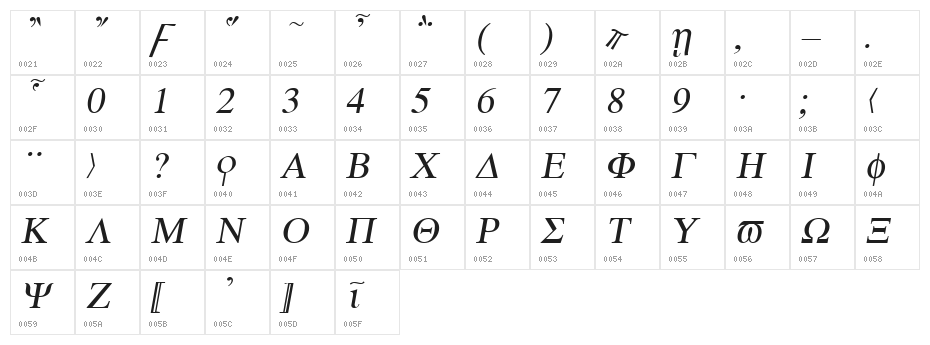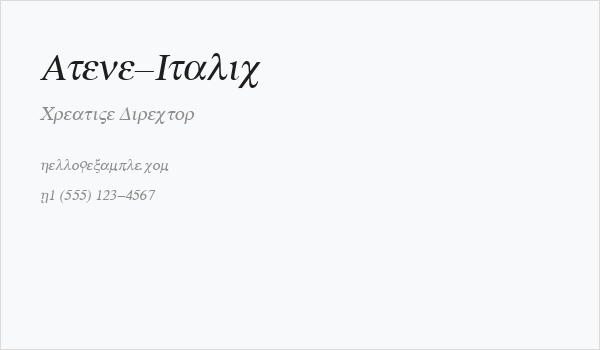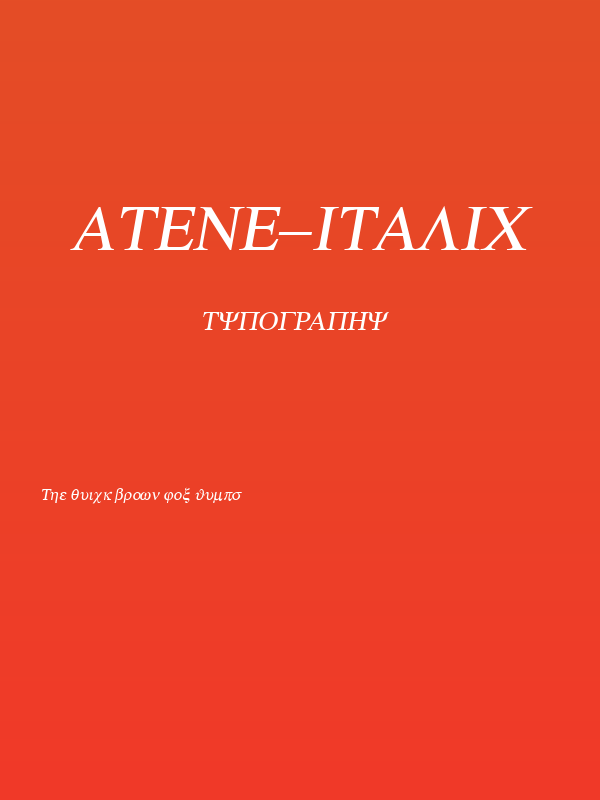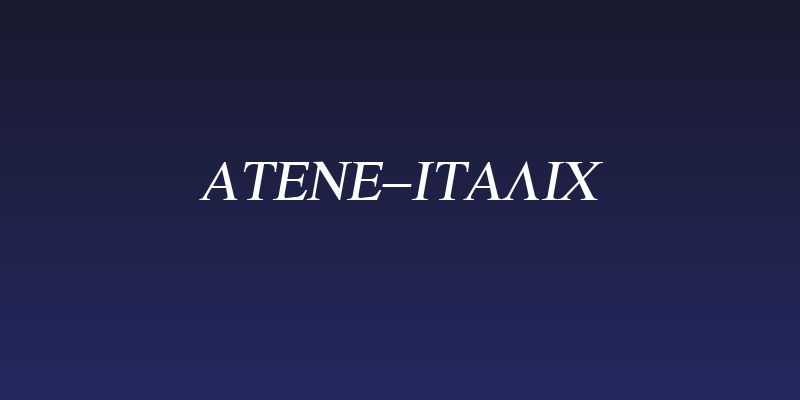
Atene-Italic Font
Atene-Italic Description
This font features a classic and elegant italic style, characterized by its smooth and flowing curves. The letters have a slight slant to the right, giving a sense of motion and sophistication. The uppercase letters are bold and prominent, while the lowercase letters maintain a consistent and harmonious flow. The numerals are well-proportioned and align seamlessly with the overall design. Special characters are crafted with the same attention to detail, ensuring a cohesive look across all glyphs. This font exudes a timeless appeal, making it suitable for a variety of applications.
| Proposed Projects | Ideal for elegant invitations, formal documents, branding, and editorial design. |